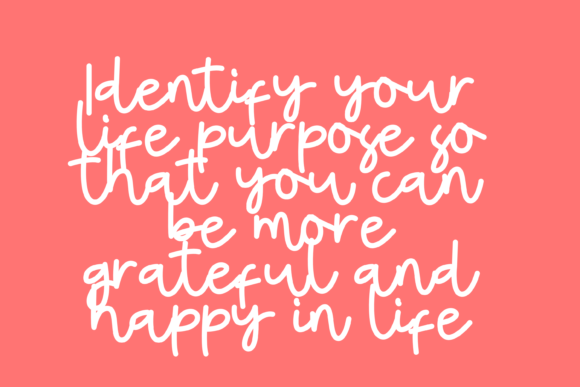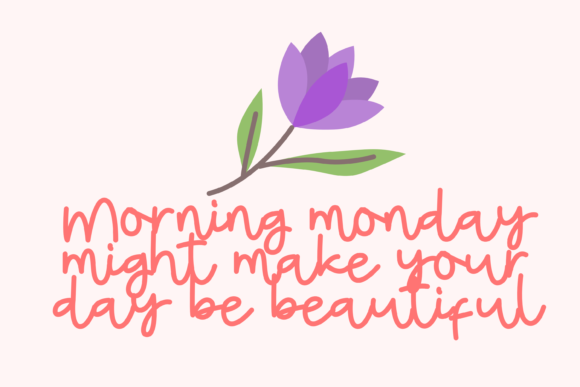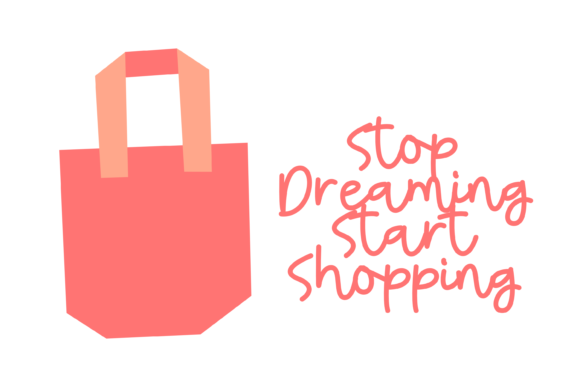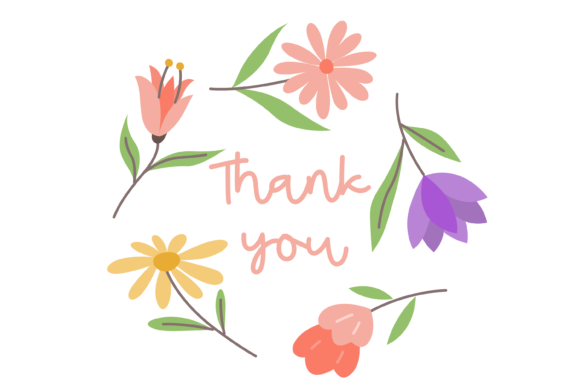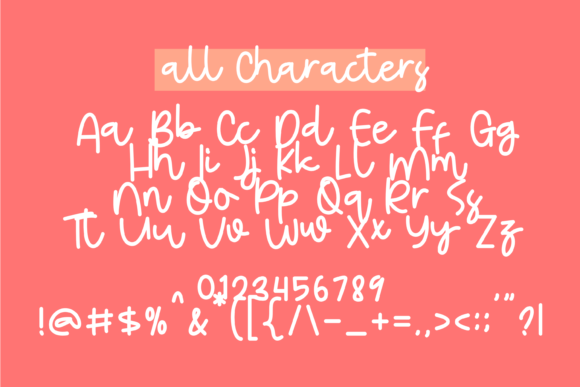
The Unique Day Font
About The Unique Day Font
The Unique Day is a delightful and whimsical script font that brings a sense of playfulness and charm to your designs. With its relaxed theme and lovely style, this font is a versatile asset to add to your font library.
No matter the topic or project, The Unique Day has the potential to elevate your creations. Its unique and distinct letterforms stand out and capture attention, making it a great choice for various design applications. Whether you’re working on greeting cards, branding materials, social media graphics, or any other creative project, The Unique Day adds a touch of whimsy and creativity.
The relaxed and casual vibe of The Unique Day makes it approachable and inviting. It has a handcrafted feel, as if each letter was lovingly written by hand. This adds a personal and authentic touch to your designs, making them more relatable and engaging to your audience.
The Unique Day is a font that encourages creativity and experimentation. Its playful style invites you to explore different design layouts, color combinations, and typographic arrangements. You can mix and match the characters, experiment with alternate glyphs, or combine it with other fonts to create truly unique and eye-catching designs.
One of the strengths of The Unique Day is its ability to convey a sense of joy and positivity. Its whimsical and relaxed style evokes feelings of happiness and lightheartedness, making it perfect for projects that aim to create a joyful and uplifting atmosphere.
In conclusion, The Unique Day is a whimsical script font with a relaxed theme and lovely style. Its versatility, playfulness, and ability to elevate any creation make it a valuable asset to your font library. Embrace the charm of The Unique Day and let it bring a touch of whimsy to your designs, inspiring joy and creativity in your audience.